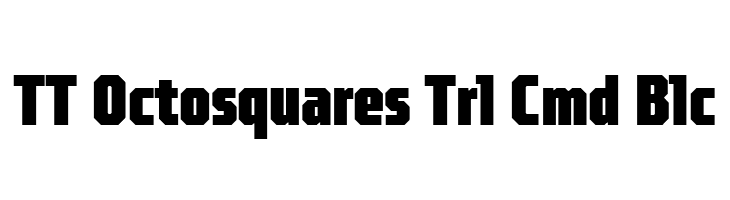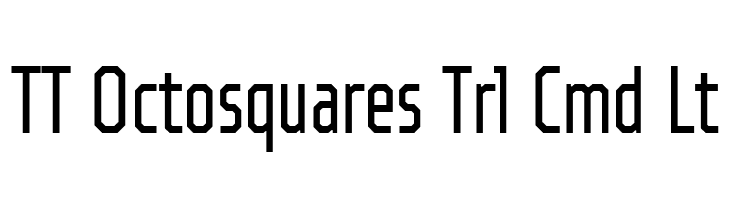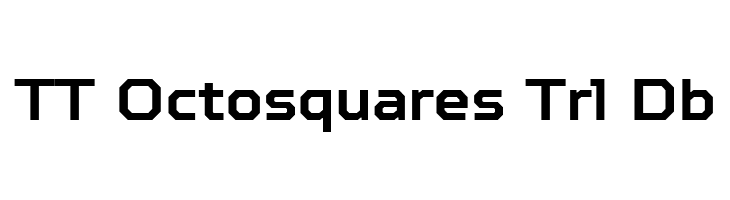
A geometric, futuristic font with octagonal shapes and clean lines.
A bold, condensed, and italicized font with a modern, tech-inspired aesthetic.
A geometric, modern font with a square-like, technical design.
A bold, geometric font with a modern, industrial style.
A bold, italicized, and geometric font with a modern and dynamic style.
A bold, geometric font with a strong, industrial style.
A geometric and modern font with angular shapes and clean lines.
A bold, geometric font with angular shapes and a monospaced look.
A geometric, octagonal font with a modern and futuristic style.
A bold, geometric font with an angular, modern design and italic slant.